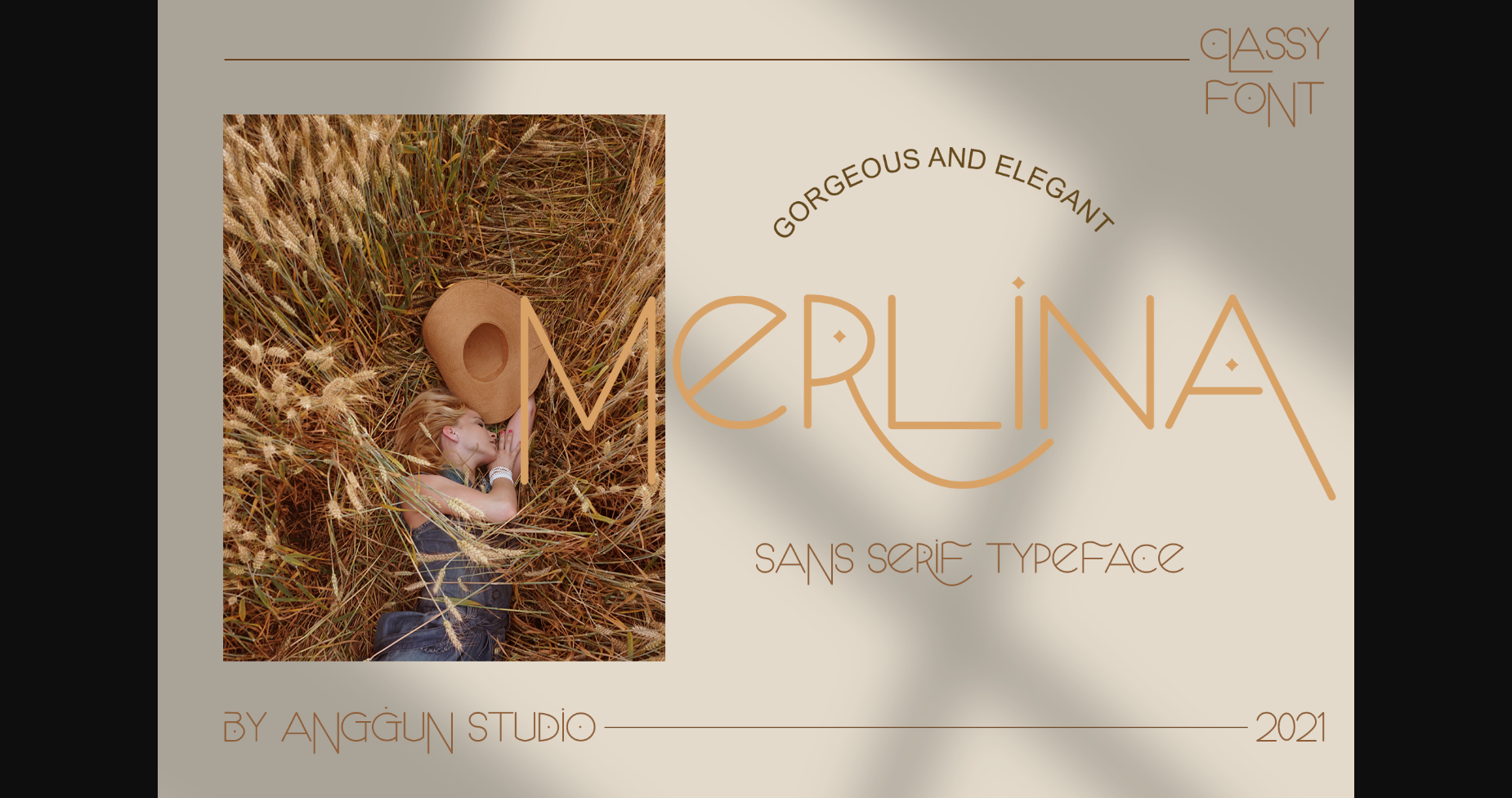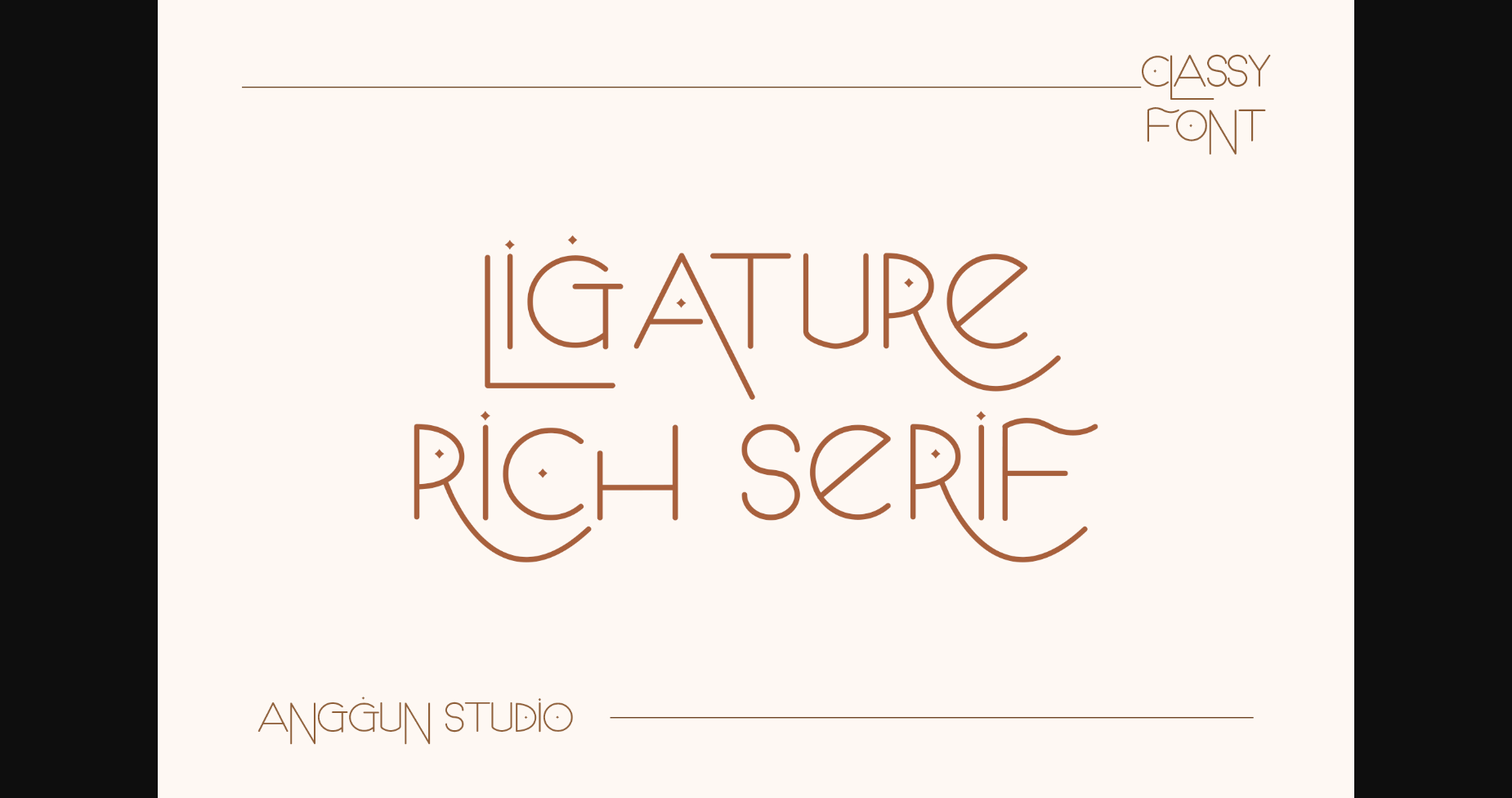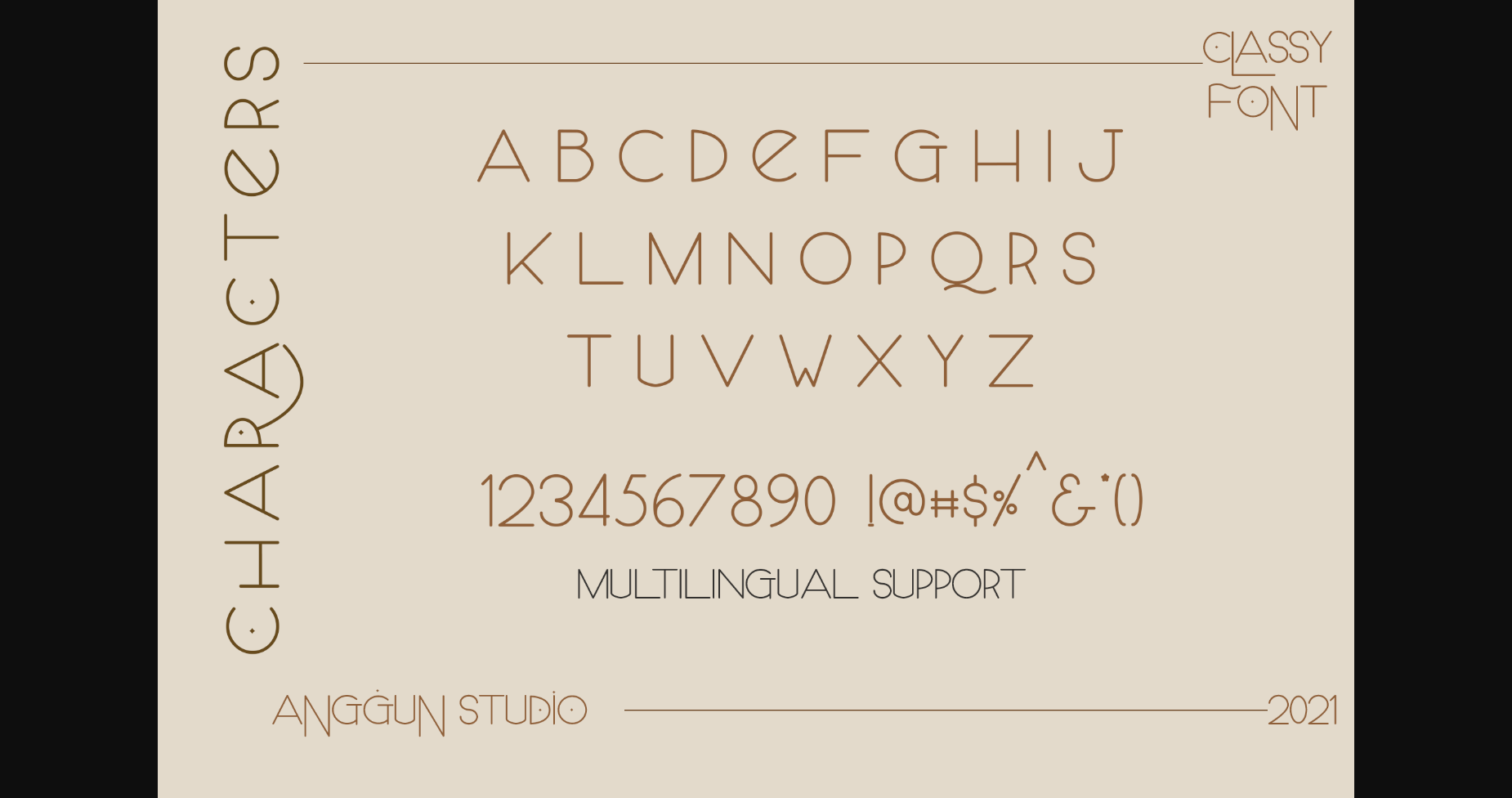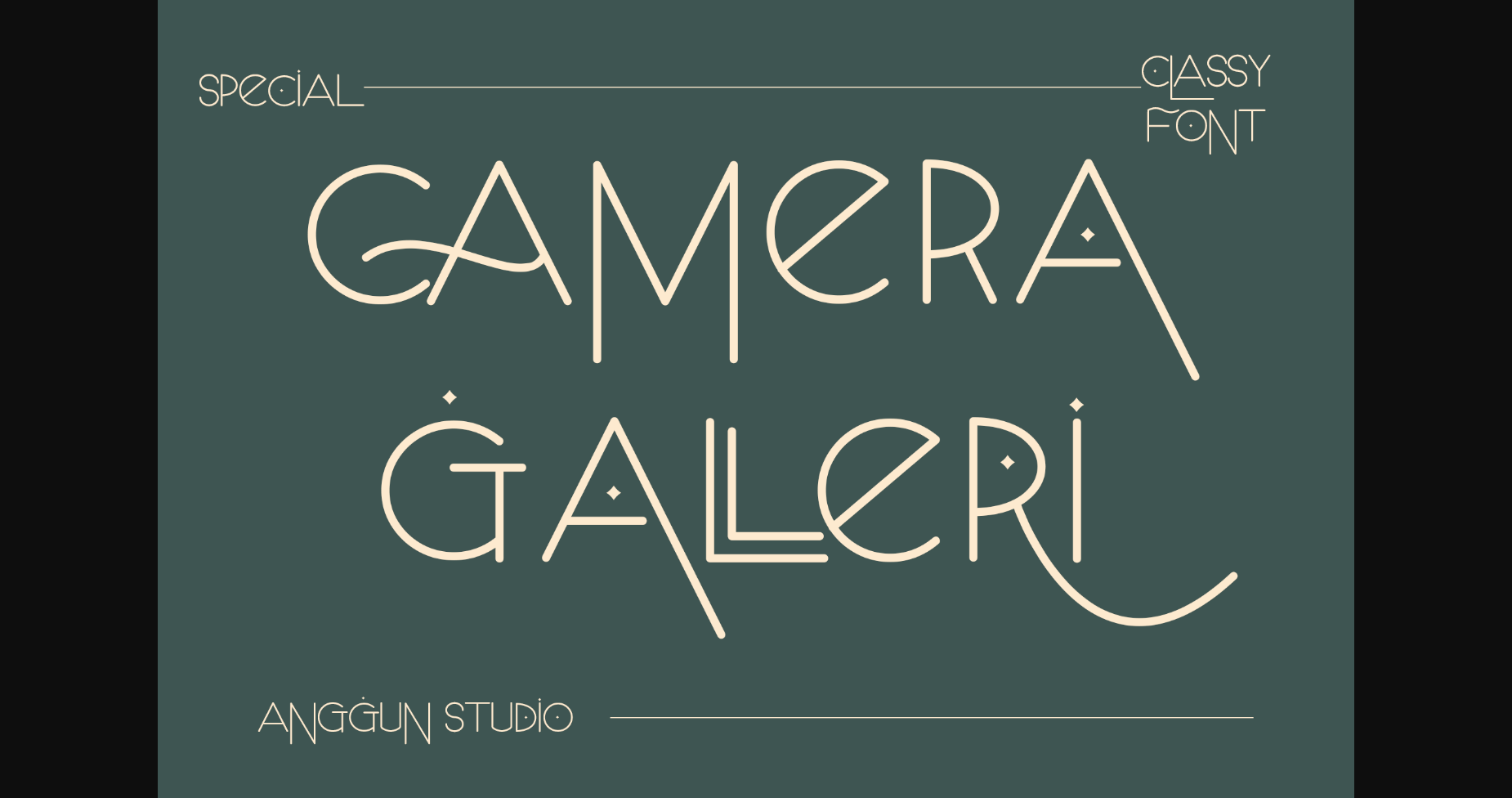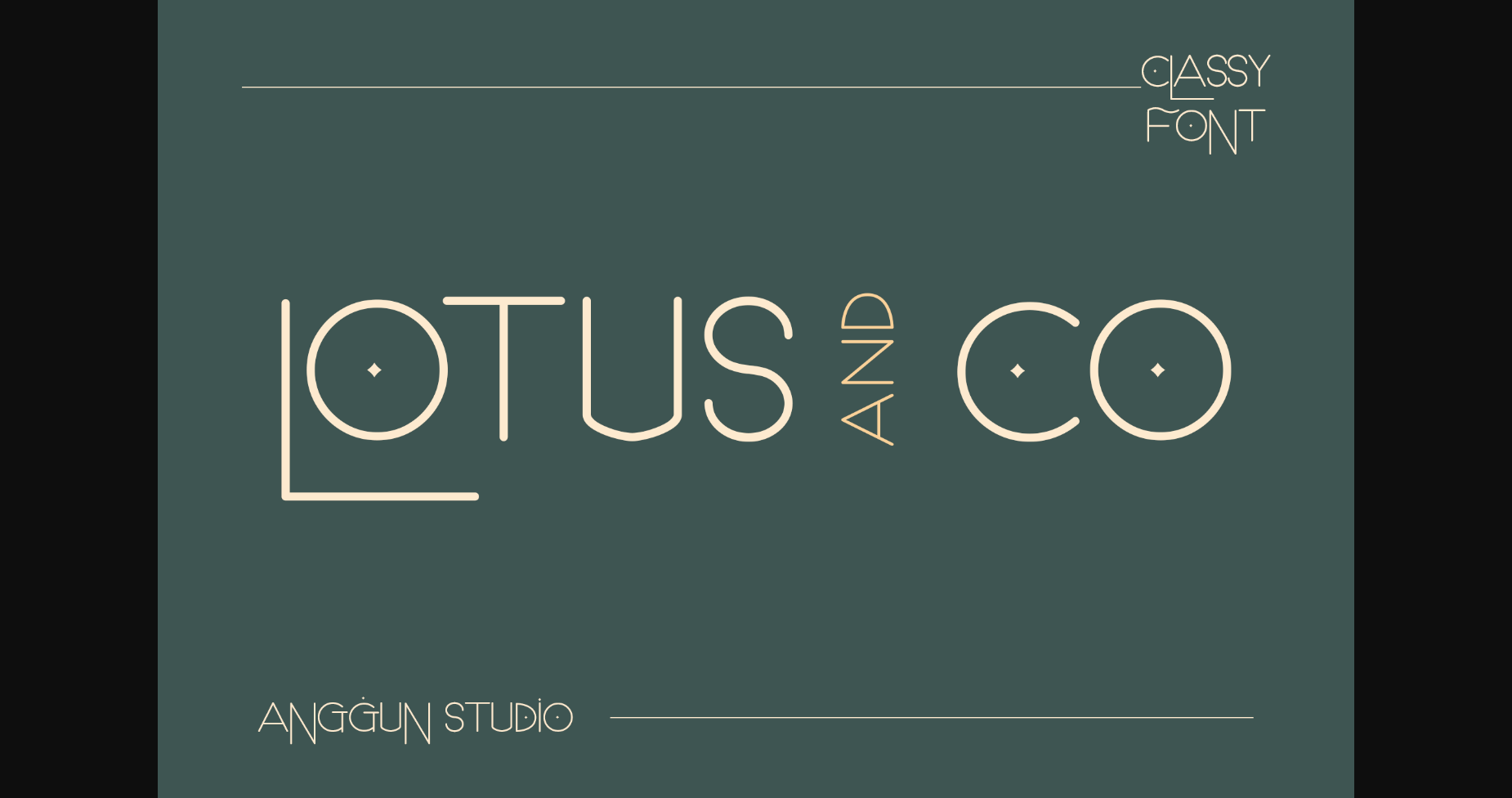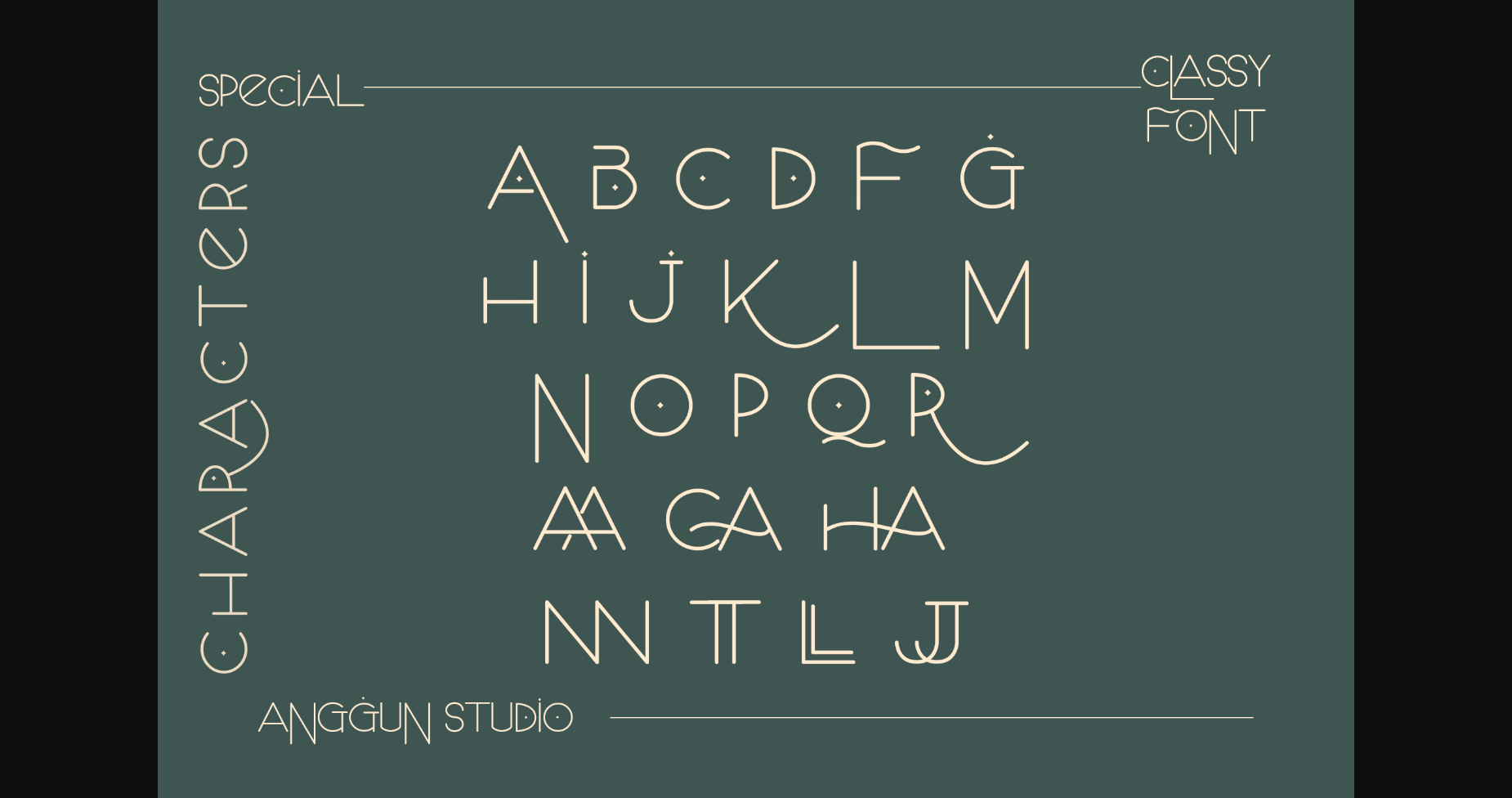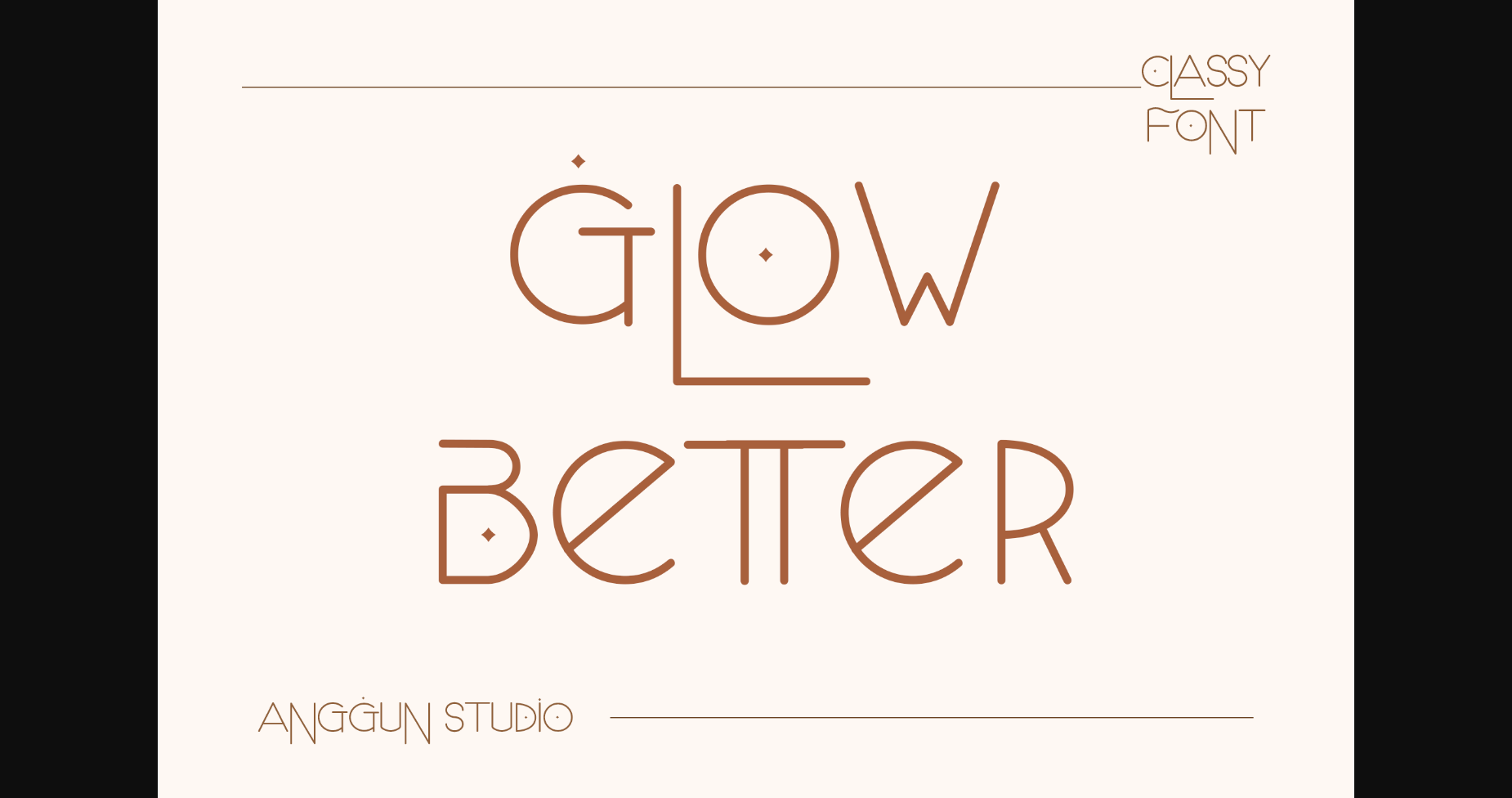
Merlina Font
About Merlina Font
Merlina is an elegant, thin lettered sans serif font. This font is PUA encoded which means you can access all of the glyphs and swashes with ease!